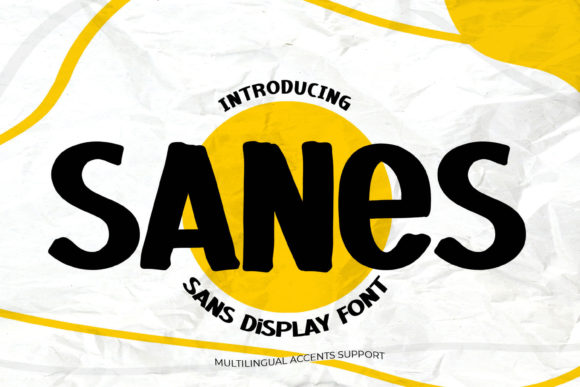
Introducing Sanes, a captivating sans serif font that will elevate your designs. Crafted by the skilled hands of Gassstype Studio, this extraordinary typeface embodies authenticity and effortless elegance.
Sanes is meticulously crafted to capture the essence of natural handwriting, with its casual and swift strokes. Each character is carefully scanned and transformed into a precise vector format, preserving the unique charm of handwritten artistry.
Indulge your creativity with Sanes, the perfect companion for an array of design endeavors. From enchanting invitations and logos to evocative book covers, Sanes adds a touch of sophistication and authenticity to your every project.
Embrace the beauty of imperfection with Sanes. Its charming, relaxed nature lends an organic touch to text, making it ideal for evoking a sense of connection and genuineness. Whether you seek to create a heartfelt greeting card or a captivating social media post, Sanes will effortlessly convey your message with authenticity and flair.
Sanes is not just a font; it's an artistic expression that breathes life into your designs. Its versatility knows no bounds, making it the perfect choice for both personal and professional projects. Unleash your creativity and let Sanes transform your designs into captivating masterpieces.